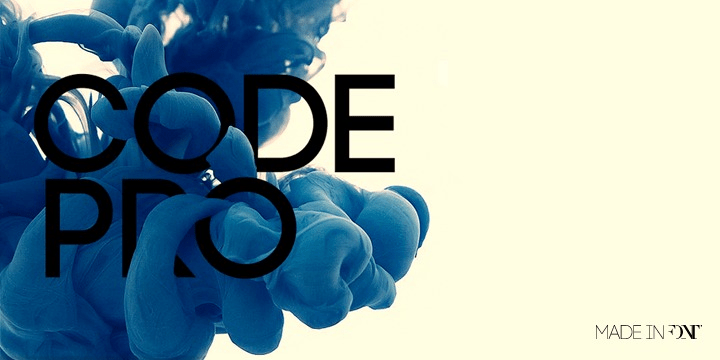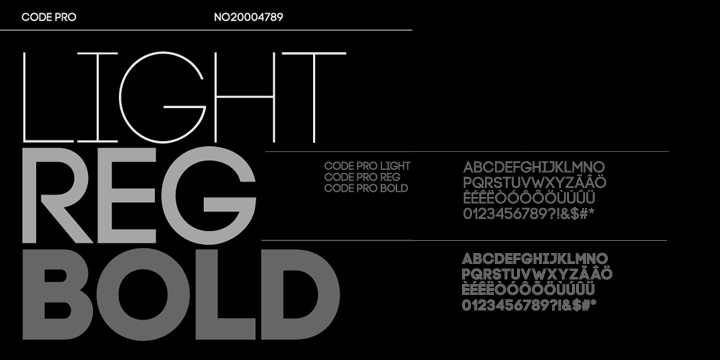
Code Pro
About Code Pro
Code Pro is a font family inspired by the original Sans Serif fonts like Avant Garde or Futura, but with a modern twist. It is clean, elegant and straight-to-the-point. Code font is applicable for any type of graphic design?web, print, motion graphics,…